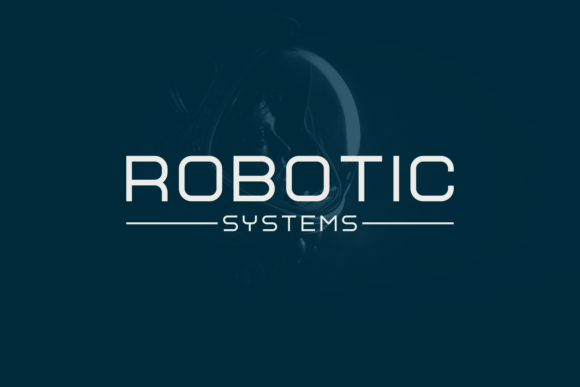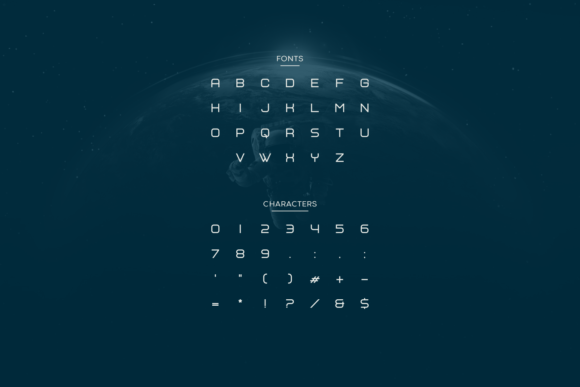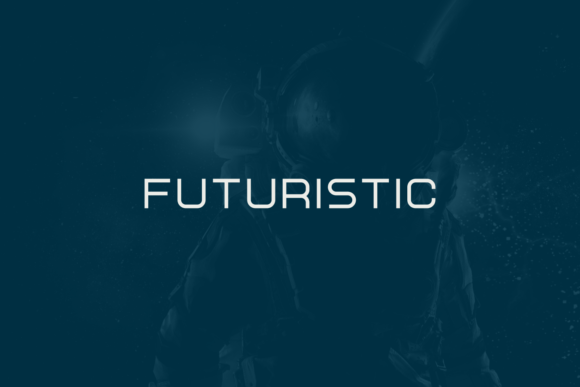
Introduction to Headrio Font
Have you ever stared at a blank design canvas, desperately searching for the perfect font to bring your creative project to life? That moment of frustration can be a thing of the past with the Headrio Font. This sleek and modern all-caps font is the ultimate design resource for designers looking to add a touch of futurism to their work.
With its clean and elegant lines, the Headrio Font is perfect for making a statement in logo design, posters, magazines, and headlines. Its versatility makes it an invaluable asset for designers of all levels, from beginners to seasoned professionals.
Key Features of Headrio Font
- High-quality design resource perfect for creative projects
- Unique and modern font styles ideal for digital design and printing
- Perfect for designers, artists, and writers seeking a professional design resource
Honest Review: Headrio Font
As a designer, I’m always on the lookout for high-quality design resources to elevate my creative projects. Recently, I came across the Headrio Font, and I wanted to share my honest thoughts on this font.
What works well: ✨ The Headrio Font has a sleek, modern design that’s perfect for a variety of projects. The font is available for free download, which is a huge plus. I also appreciate the transparent background, which makes it easy to use in different design contexts.
Some notable features of the Headrio Font include:
- Transparent background for easy use
- Wide range of font styles and weights
Limitations: ⚠️ While the Headrio Font is a great resource, I do wish it had more customization options. Additionally, some of the font styles can be a bit difficult to read at smaller sizes.
Overall impression: I’m impressed with the Headrio Font and would definitely recommend it to fellow designers. While it may have some limitations, its high-quality design and free download make it a valuable addition to any design resource collection.
Tips for Getting the Most Out of Headrio Font
Experiment with different font sizes and colors to achieve the desired effect. Use the font in combination with other design elements to create a cohesive look. Consider using the font in a creative project to showcase your unique style.
Use the Headrio Font in a variety of creative projects, including logos, posters, business cards, and social media graphics. It’s a great design resource for anyone looking to add a touch of elegance and sophistication to their designs.